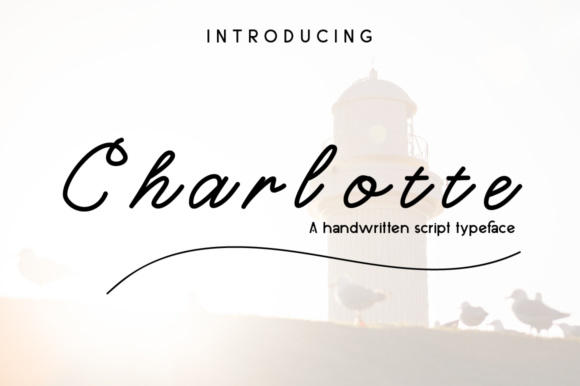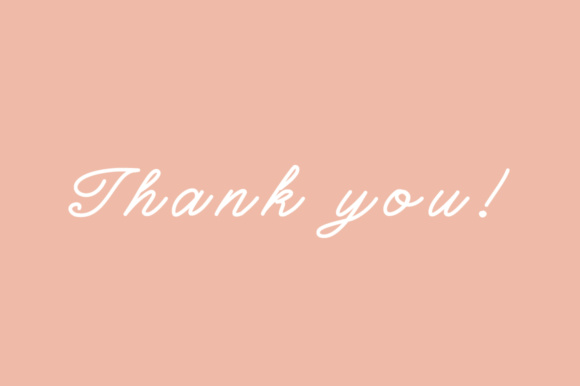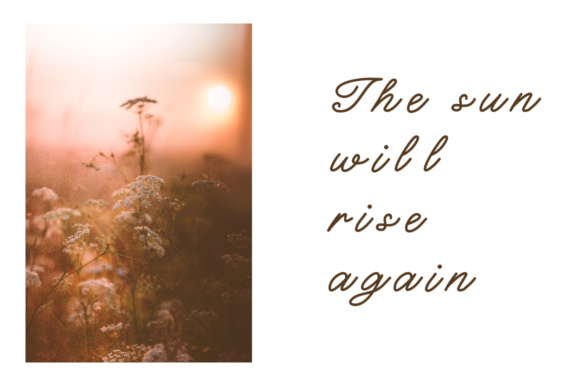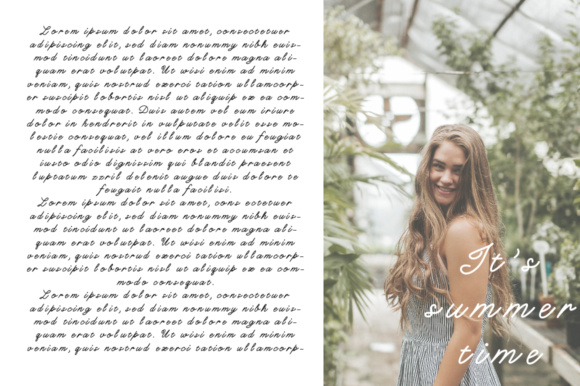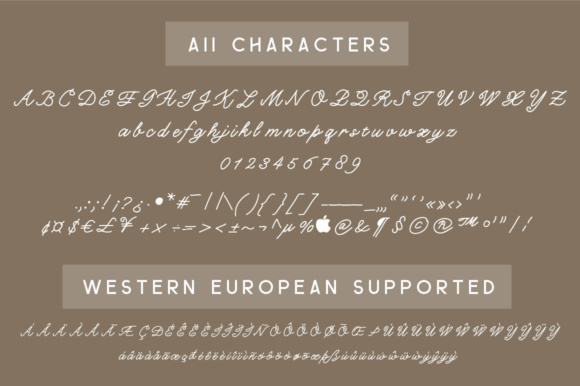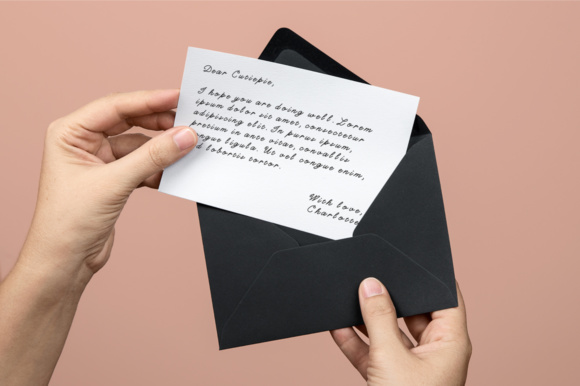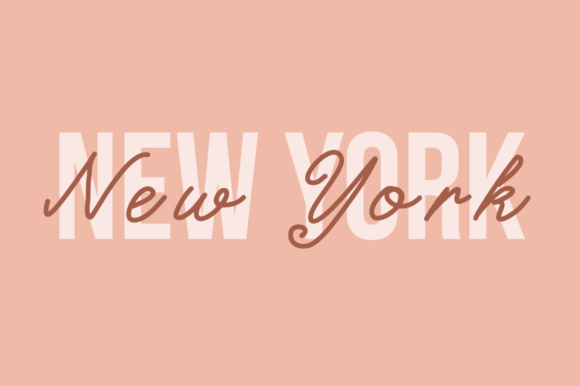
Charlotte Script Font
About Charlotte Script Font
Charlotte is a slant handwriting script typeface with a mono weight stoke, giving off a girly vibe. Charlotte has an informal and vintage look. It can be used as a cute minimal-style header display or as a stylish text for magazines, blogs, branding, packaging, wedding invitations, etc.